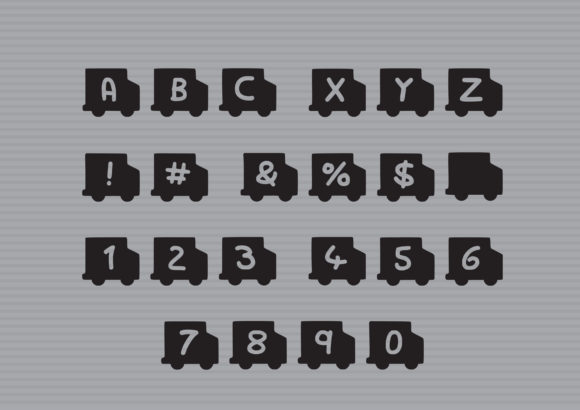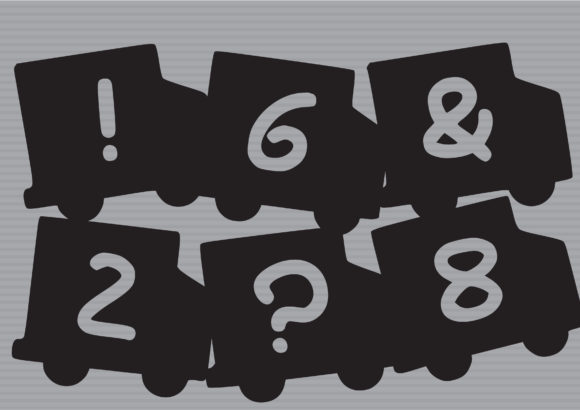
Introduction to Play Van Font
Do you remember the excitement of getting your first set of crayons and starting a new coloring project? The world of art and creativity is a magical place where imagination knows no bounds. For designers and creatives, finding the perfect font can be the key to unlocking that magic. And when it comes to creating something truly special, the Play Van Font is an absolute must-have.
This lovely decorative font features a set of vans with a playful, child-like vibe that’s perfect for any children’s activity or school project. With its trendiness and authenticity, it’s no wonder why designers are flocking to use it in their creative projects. Whether you’re looking for a high-quality design resource or a fun way to add some personality to your work, the Play Van Font is an excellent choice.
Key Features of Play Van Font
- High-quality font design perfect for creative projects and designs, ideal for designers seeking a unique and stylish font.
- Designed with a unique and playful style, making it perfect for adding a touch of whimsy to your designs.
Honest Review: Play Van Font
I recently had the chance to work with the Play Van Font on a creative project, and I must say it’s a game-changer. With its high quality and transparent background, it’s a fantastic design resource to have in your toolkit.
- ✨ The font is incredibly versatile and can be used for a wide range of creative projects, from digital graphics to print materials.
- ✨ The transparent background makes it easy to overlay the font on top of images or other design elements.
- ⚠️ The font may not be suitable for projects that require a lot of bold, heavy text, as it can become difficult to read at larger sizes.
- ⚠️ The font is a bit on the thin side, which may not be ideal for projects that require a lot of text density.
Overall, I’m really impressed with the Play Van Font. It’s a fantastic addition to any designer’s toolkit, and its free download makes it a must-have resource for any creative project.
Getting the Most Out of Play Van Font
Use Play Van Font in your design project to create a unique and eye-catching look. This font is perfect for creative projects that require a high-quality, modern font. You can also use it to add a touch of sophistication to your designs.
Play Van Font is commonly used in graphic design, branding, and digital marketing projects. It’s also a great font to use in presentations, reports, and other business documents.